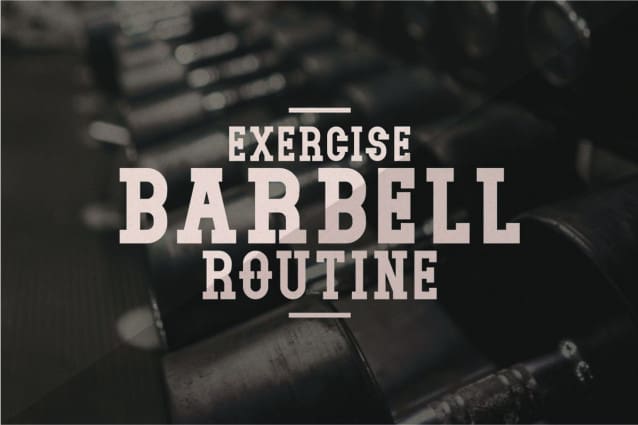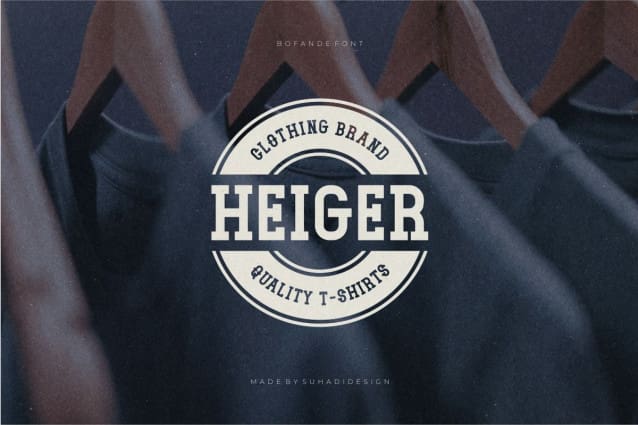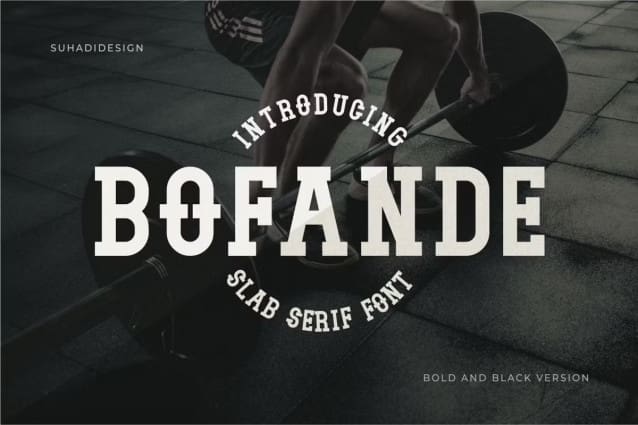
Bofande Font
Bofande Font is a modern and very popular slab serif font, making it a popular search market. BofandeFont is a great choice for sports fonts, logos, brand names, branding, brands, company names, motivational quotes, and other projects.